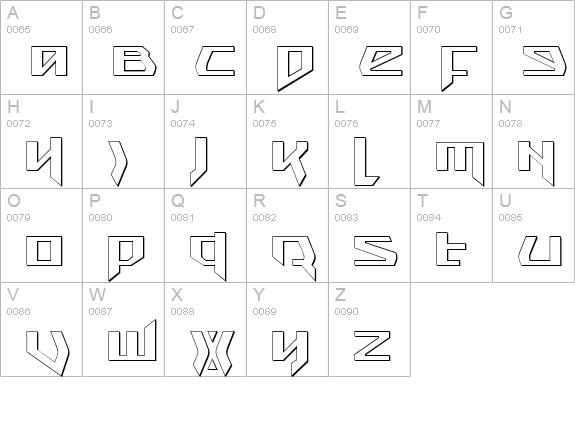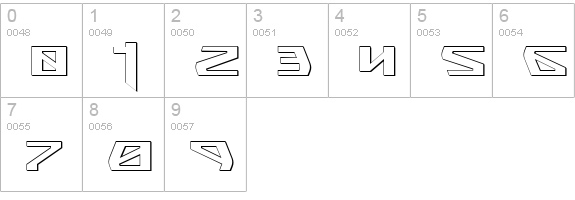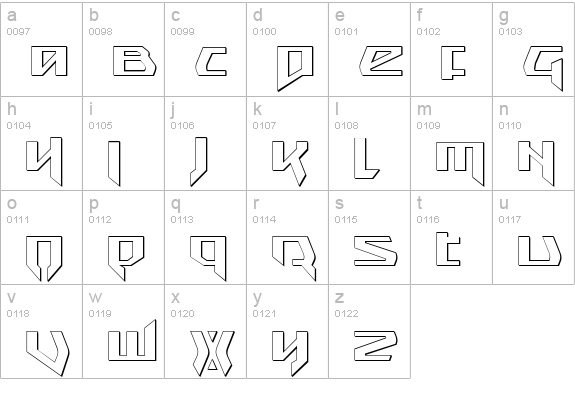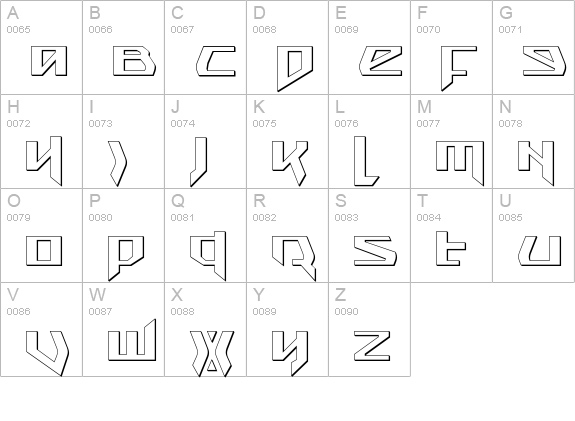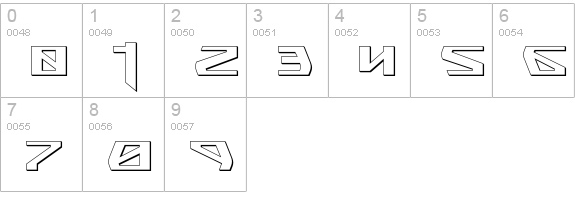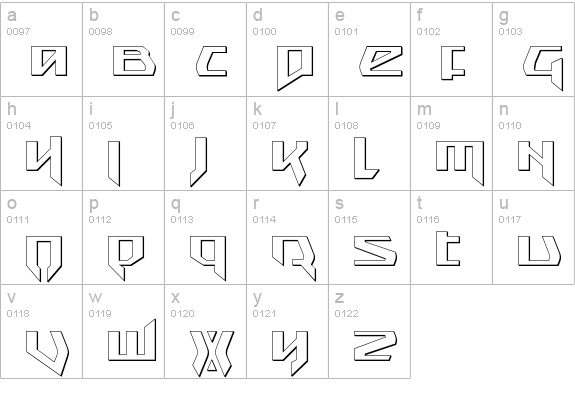
Snubfighter 3D font is a bold and dynamic typeface that adds a futuristic touch to any design project. With its sharp angles and sleek design, this font captures attention and exudes a sense of modernity. Perfect for sci-fi themes, gaming graphics, and tech-focused materials, Snubfighter 3D font brings a unique flair to your creations. The best part? Snubfighter 3D font is completely free to download at FontsMarket.com! Simply head over to the website and grab this eye-catching font to elevate your designs without breaking the bank. Whether you're working on posters, logos, websites, or any other visual project, Snubfighter 3D font will make a bold statement and leave a lasting impression on your audience. Download it today and unleash the power of this striking typeface in your creative endeavors.